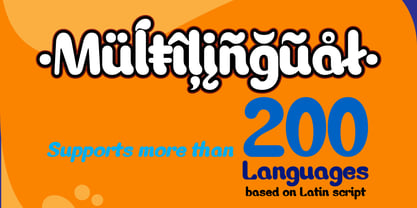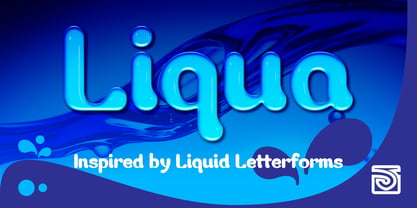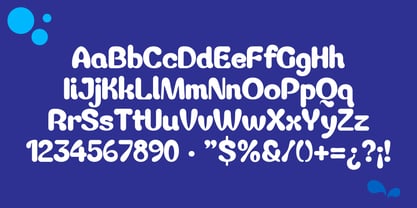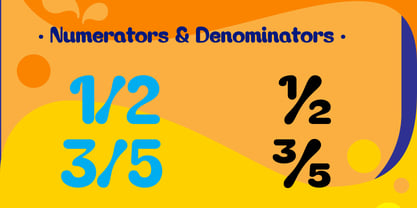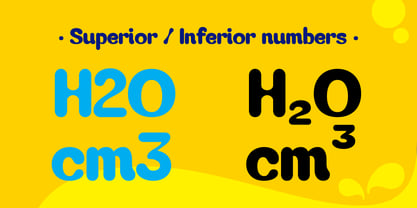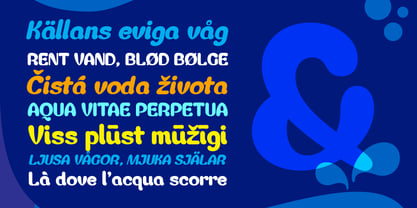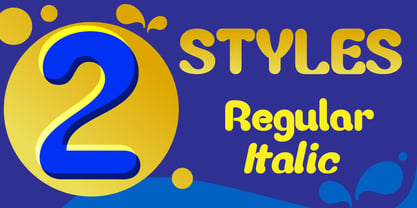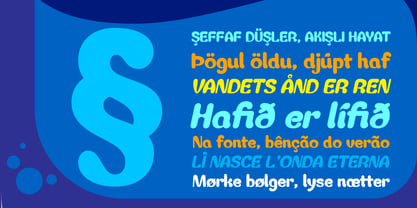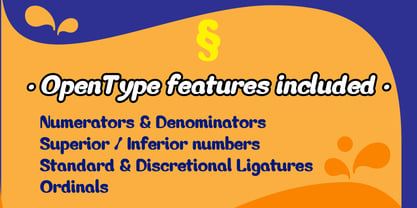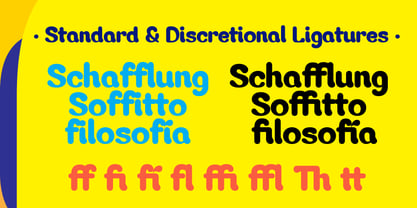
Liqua
The Liqua Font Family was designed by John Vargas Beltrán and published by JVB Fonts. Liqua contains 2 styles and family package options. More about this family
Liqua is a contemporary sans serif typeface inspired by the natural flow of liquid forms. Its design captures the essence of fluidity through soft curves, smooth terminals, and organic modulation that bring movement, dynamism and a joyful spirit to text.
This font was carefully developed to balance legibility and personality: the letterforms feature generous counters and dynamic strokes that make Liqua perform equally well in display texts.
✦ Technical features
• OpenType Features:
• Standard and discretionary ligatures (ff, fi, fl, ffi, ffl, tt, Th, TT)
• Ordinals
• Fractions, numerators and denominators
• Superior and inferior number figures
• Character Set: Extended Latin, covering over 200 languages.
• Diacritics: Full support for accented characters such as ç, ñ, ø, æ, å, ğ, ő, ű, ł, đ, ă, ș, ț, č, š, ž, ensuring excellent performance in multilingual projects.
✦ Recommended uses
Liqua is ideal for projects that demand an organic sense, fluidity, and movement, such as:
• Branding & visual identity
• Editorial and magazine design
• Packaging, especially cosmetics, beverages, and wellness products
• Posters, covers, and digital campaigns where expressive typography is central